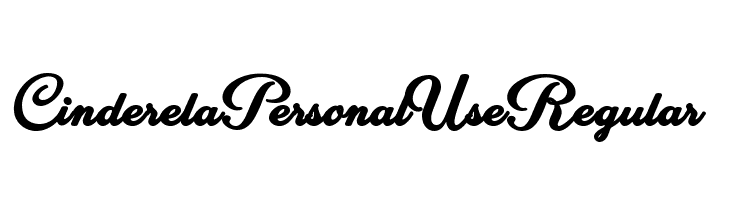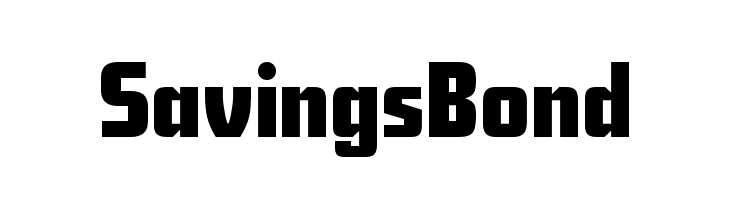
A bold, italicized font with a modern and sleek appearance.
A bold, geometric font with a modern, futuristic style.
A modern, elegant script font with flowing cursive letterforms.
A sleek, modern italic font with clean lines and a professional appearance.
A playful, handwritten font with an informal and whimsical style.
A playful, informal handwritten font with smooth, fluid strokes.
A playful, casual handwritten font with smooth, flowing lines and a friendly vibe.
A playful, handwritten font with bold, rounded strokes and a whimsical style.
A bold, futuristic font with a mechanical and tech-inspired design.
A bold, handwritten font with a casual and playful style.
A geometric, minimalist font with a modern, wireframe aesthetic.
A geometric, angular font with sharp edges and distinct shapes.
An elegant, high-contrast font with tall, narrow letters and a modern style.
A modern, geometric sans-serif font with rounded edges and consistent stroke width.
A bold, jagged, and geometric font with an edgy, hand-drawn appearance.
A playful, bold font with rounded, thick strokes and a whimsical style.
A monospaced, italic font with a modern and clean design.
A playful and energetic handwritten font with a casual, informal style.
A bold, decorative font with intricate internal patterns and thick outlines.
Tall, whimsical handwritten script with high contrast and playful curves.
A bold, rounded font with a playful, weathered appearance.
A playful, handwritten-style font with a chalk-like texture.
A bold, playful font with thick, rounded characters and a whimsical style.
A sleek, italicized, and condensed font with a modern, dynamic appearance.
A playful, heart-themed font with rounded, smooth characters.
A bold, dynamic script font with high contrast and fluid connections.
Cartoon emoticon dingbat font with diverse facial expressions.
A bold, dripping font with a gothic and theatrical style.
A bold, geometric typeface with a modern and impactful style.
A dynamic, waved decorative font with a unique flowing texture.
A bold, distressed font with a grunge and rebellious aesthetic.